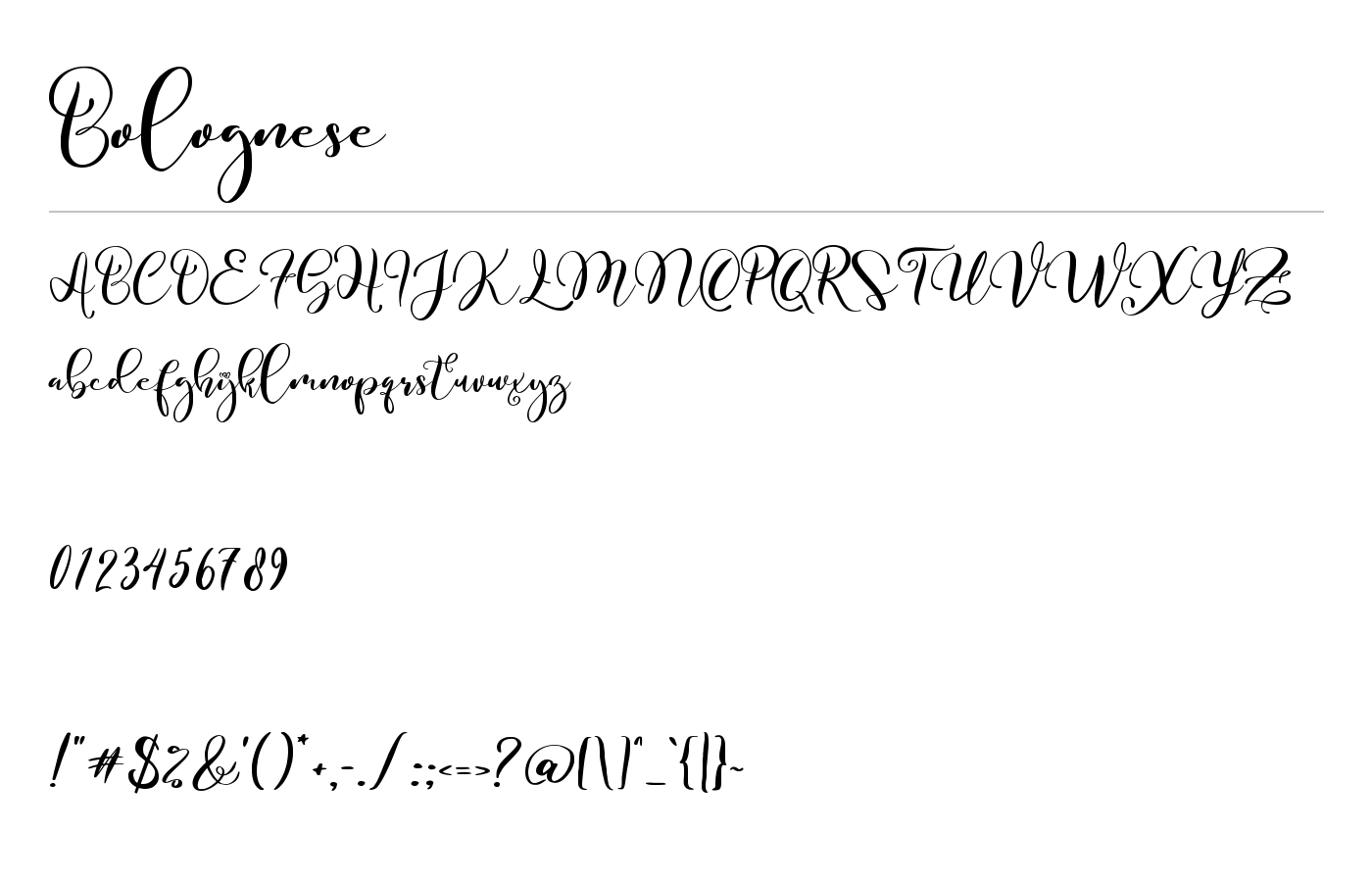
Bolognese is a graceful script font with elegant, flowing strokes and a high contrast between thick and thin lines, giving it a luxurious and refined feel. Its delicate letterforms and charming swashes make it ideal for sophisticated branding, invitations, and editorial accents where a touch of beauty and personality is desired. This font shines in decorative uses that call for a romantic, stylish impression.
Bolognese Font
About Bolognese Font
| Font family | Bolognese Font |
| Designer | Aldedesign x Noftanti 2021 |